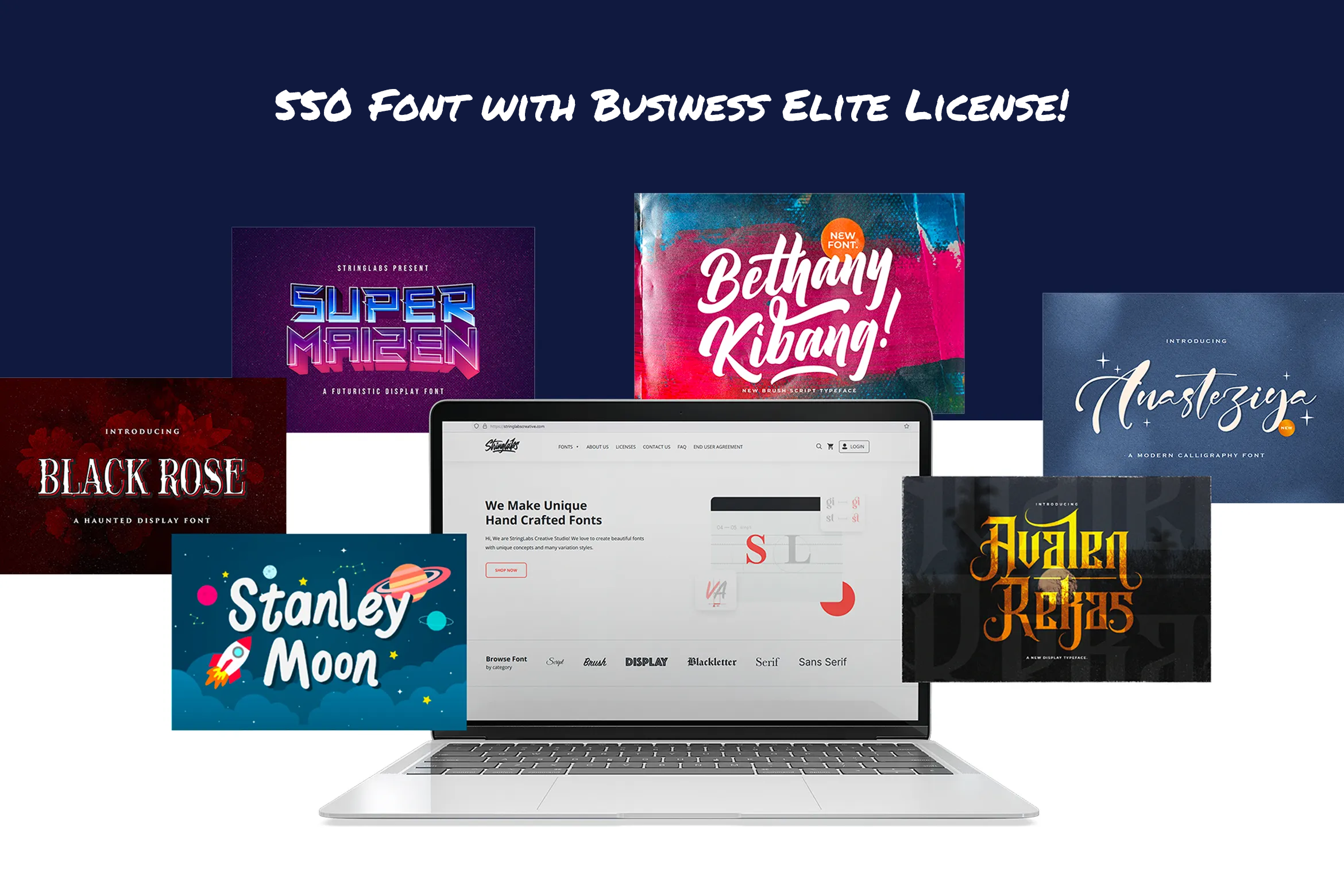
550 Font Bundle by StringLabs
Say hello to 550 Font Bundle with Corporate License from StringLabs! The Amazing font collection for your any design purpose. This font bundle contains 550 high quality fonts with has many variation styles, such as: Display Fonts, Blackletter Fonts, Victorian Fonts, Gothic Fonts, Horror Fonts, Thriller Fonts, Sans Serif Fonts, Decorative Serif Fonts, Playful Fonts, Textured HandBrush Fonts, and Handwritten Script Fonts.
36. Mystique – Luxury Signature Fonthttps://stringlabscreative.com/mystique
37. Ballerina – Signature Script Fonthttps://stringlabscreative.com/ballerina
38. Rachelyne – Modern Calligraphy Fonthttps://stringlabscreative.com/rachelyne
39. Beauty Heart – Lovely Calligraphy Fonthttps://stringlabscreative.com/beauty-heart
40. Dattge Hurty – Monoline Retro Fonthttps://stringlabscreative.com/dattge-hurty
41. Rindu Alam – Signature Script Fonthttps://stringlabscreative.com/rindu-alam
42. Stringlabs – Monoline Retro Fonthttps://stringlabscreative.com/stringlabs
43. Rayhue – Retro Bold Script Fonthttps://stringlabscreative.com/rayhue
44. The Anthelope – Retro Bold Script Fonthttps://stringlabscreative.com/the-anthelope
45. The Lastring – Tattoo Script Fonthttps://stringlabscreative.com/the-lastring
46. Anasite Malela – Bold Script Fonthttps://stringlabscreative.com/anasite-malela
47. Russel Dexter – Retro Vintage Fonthttps://stringlabscreative.com/russel-dexter
48. Calvin Fallen – Handwritten Signature Script Fonthttps://stringlabscreative.com/calvin-fallen
49. Montages – Retro Bold Script Fonthttps://stringlabscreative.com/montages
50. Brightly Crush – Playful Typefacehttps://stringlabscreative.com/brightly-crush
51. Dulan Anzelica – Signature Script Fonthttps://stringlabscreative.com/dulan-anzelica
52. Ingkar Janji – Stylish Script Fonthttps://stringlabscreative.com/ingkar-janji
53. Bethan White – Monoline Script Fonthttps://stringlabscreative.com/bethan-white
54. Miny Fellas – Modern Handwritten Fonthttps://stringlabscreative.com/miny-fellas
55. Virgiluna – Modern Calligraphy Fonthttps://stringlabscreative.com/virgiluna
56. Playkidos – Playful Fonthttps://stringlabscreative.com/playkidos
57. Melvina Wayne – Luxury Script Fonthttps://stringlabscreative.com/melvina-wayne
58. The Angellica – Modern Calligraphy Fonthttps://stringlabscreative.com/the-angellica
59. Miya Wayne – Modern Lovely Script Fonthttps://stringlabscreative.com/miya-wayne
60. Virgiano – Decorative Sporty Fonthttps://stringlabscreative.com/virgiano
61. Recollet – Retro Bold Script Fonthttps://stringlabscreative.com/recollet
62. Comic Boys – Kids Bubble Fonthttps://stringlabscreative.com/comic-boys
63. White Mellow – Handwritten Script Fonthttps://stringlabscreative.com/white-mellow
64. Stilda – Script Fonthttps://stringlabscreative.com/stilda
65. The Comic Struve – Playful Kids Fonthttps://stringlabscreative.com/the-comic-struve
66. Osake – Japanese Fonthttps://stringlabscreative.com/osake
67. Anttariksa – Brush Script Fonthttps://stringlabscreative.com/anttariksa
68. Holland Gateway – Handwritten Script Fonthttps://stringlabscreative.com/holland-gateway
69. Azingdar – Retro Bold Script Fonthttps://stringlabscreative.com/azingdar
70. Cyber Sport – Sporty Display Fonthttps://stringlabscreative.com/cyber-sport
71. Jacmax – Horror Fonthttps://stringlabscreative.com/jacmax
72. Fredam Theory – Retro Bold Script Fonthttps://stringlabscreative.com/fredam-theory
73. The Austin – Handwritten Fonthttps://stringlabscreative.com/the-austin
74. Taniya Relly – Luxury Signature Fonthttps://stringlabscreative.com/taniya-relly
75. Winsthen – Handwritten Fonthttps://stringlabscreative.com/winsthen
76. Jasmine Daily – Playful Display Fonthttps://stringlabscreative.com/jasmine-daily
77. Restu Bundah – Retro Bold Script Fonthttps://stringlabscreative.com/restu-bundah
78. Rantting Tjinta – Stylish Script Fonthttps://stringlabscreative.com/rantting-tjinta
79. Angelwine – Handwritten Fonthttps://stringlabscreative.com/angelwine
80. The Saily – Monoline Retro Fonthttps://stringlabscreative.com/the-saily
81. Mystic Darling – Handwritten Fonthttps://stringlabscreative.com/mystic-darling
82. Vivy Aquilla – Handwritten Fonthttps://stringlabscreative.com/vivy-aquilla
83. The Gallery – Monoline Script Fonthttps://stringlabscreative.com/the-gallery
84. Megahunt – Brush Script Fonthttps://stringlabscreative.com/megahunt
85. Hysteria – Stylish Script Fonthttps://stringlabscreative.com/hysteria
86. Kinder Boys – Playful Fonthttps://stringlabscreative.com/kinder-boys
87. Vagnotie – Modern Brush Fonthttps://stringlabscreative.com/vagnotie
88. Roguedash – Stylish Sans Font Familyhttps://stringlabscreative.com/roguedash
89. Ving Smith – Handwritten Fonthttps://stringlabscreative.com/ving-smith
90. Belinday – Monoline Script Fonthttps://stringlabscreative.com/belinday
91. Santy Ehisa – Stylish Script Fonthttps://stringlabscreative.com/santy-ehisa
92. Sellviny – Handwritten Fonthttps://stringlabscreative.com/sellviny
93. The Banten – Monoline Script Fonthttps://stringlabscreative.com/the-banten
94. Walentiny – Handwritten Fonthttps://stringlabscreative.com/walentiny
95. Mathulesy – Handwritten Fonthttps://stringlabscreative.com/mathulesy
96. Vuttaline – Handwritten Fonthttps://stringlabscreative.com/vuttaline
97. Pejuang Cinta – Handwritten Fonthttps://stringlabscreative.com/pejuang-cinta
98. Shiny Aisyah – Handwritten Fonthttps://stringlabscreative.com/shiny-aisyah
99. Austhind – Stylish Brush Fonthttps://stringlabscreative.com/austhind
100. Basuhed – Handwritten Fonthttps://stringlabscreative.com/basuhed
101. Baster Monky – Monoline Script Fonthttps://stringlabscreative.com/baster-monky
102. Mashiya – Monoline Script Fonthttps://stringlabscreative.com/mashiya
103. Chaybree – Handwritten Fonthttps://stringlabscreative.com/chaybree
104. Lovely Kids – Playful Fonthttps://stringlabscreative.com/lovely-kids
105. Vezthisory – Handwritten Fonthttps://stringlabscreative.com/vezthisory
106. Arionna – Modern Calligraphy Fonthttps://stringlabscreative.com/arionna
107. Baliung – Handwritten Fonthttps://stringlabscreative.com/bailung
108. Firsta – Handwritten Fonthttps://stringlabscreative.com/firsta
109. Bulgaria – Modern Calligraphy Fonthttps://stringlabscreative.com/bulgaria
110. Renitah – Lovely Script Fonthttps://stringlabscreative.com/renitah
111. Dianora – Handwritten Fonthttps://stringlabscreative.com/dianora
112. Twenty Senja – Playful Fonthttps://stringlabscreative.com/twenty-senja
113. Justhin – Monoline Script Fonthttps://stringlabscreative.com/justhin
114. I am Cool – Brush Script Fonthttps://stringlabscreative.com/i-am-cool
115. Reinstay – Brush Script Fonthttps://stringlabscreative.com/reinstay
116. Binttang Selfianto – Script Fonthttps://stringlabscreative.com/binttang-selfianto
117. Zenghief – Hand Brush Fonthttps://stringlabscreative.com/zenghief
118. Regalhisa – Calligraphy Fonthttps://stringlabscreative.com/regalhisa
119. Wilson Wells – Blackletter Fonthttps://stringlabscreative.com/wilson-wells
120. Stringlabs Creative – Bold Script Fonthttps://stringlabscreative.com/stringlabs-creative
121. Fendysa – Calligraphy Fonthttps://stringlabscreative.com/fendysa
122. Angelicy – Textured Brush Fonthttps://stringlabscreative.com/angelicy
123. Anjelica Script – Bold Script Fonthttps://stringlabscreative.com/anjelica-script
124. Aerillyo – Retro Bold Script Fonthttps://stringlabscreative.com/aerillyo
125. Carlitos – Decorative Sporty Fonthttps://stringlabscreative.com/carlitos
126. Avenus Type – Quirky Display Fonthttps://stringlabscreative.com/avenus-type
127. Blackink – Street Brush Display Fonthttps://stringlabscreative.com/blackink
128. Livingstone – Blackletter Fonthttps://stringlabscreative.com/livingstone
129. Lazyday – Bold Script Fonthttps://stringlabscreative.com/lazyday
130. Chalk Board – A Handmade Chalk Fonthttps://stringlabscreative.com/chalk-board
131. Awely Shiny – Handwritten Fonthttps://stringlabscreative.com/awely-shiny
132. Dark Phoenix – Playful Display Fonthttps://stringlabscreative.com/dark-phoenix
133. Super Kids – Playful Display Fonthttps://stringlabscreative.com/super-kids
134. Chivel Mind – Vintage Fonthttps://stringlabscreative.com/chivel-mind
135. Janji Cinta – Handwritten Fonthttps://stringlabscreative.com/janji-cinta
136. Betty Finty – Modern Script Fonthttps://stringlabscreative.com/betty-finty
137. Brittany Angella – Lovely Script Fonthttps://stringlabscreative.com/brittany-angella
138. Virgi Ella – Lovely Calligraphy Fonthttps://stringlabscreative.com/virgi-ella
139. Catthy Wellingten – Modern Script Fonthttps://stringlabscreative.com/catthy-wellingten
140. Cinthya Einzberg – Handwritten Fonthttps://stringlabscreative.com/cinthya-einzberg
141. Marvelous Photograph – Font Duohttps://stringlabscreative.com/marvelous-photograph
142. Mortal Wave – Dry Brush Fonthttps://stringlabscreative.com/mortal-wave
143. Haredang – Bold Script Fonthttps://stringlabscreative.com/haredang
144. Rattnugidari – Brush Script Fonthttps://stringlabscreative.com/rattnugidari
145. Butterfly – Lovely Calligraphy Fonthttps://stringlabscreative.com/butterfly
146. Magic Wand – Bold Script Fonthttps://stringlabscreative.com/magic-wand
147. Mentari – Bold Script Fonthttps://stringlabscreative.com/mentari
148. Sangkury – Haunted Display Fonthttps://stringlabscreative.com/sangkury
149. Brightside – Modern Calligraphy Fonthttps://stringlabscreative.com/brightside
150. Dilan Whemsy – Modern Script Fonthttps://stringlabscreative.com/dilan-whemsy
151. Kenarose – Playful Display Fonthttps://stringlabscreative.com/kenarose
152. Welingtom – Futuristic Display Fonthttps://stringlabscreative.com/welingtom
153. Rhieknuza – Graffiti Fonthttps://stringlabscreative.com/rhieknuza
154. Hey Sweety – Modern Script Fonthttps://stringlabscreative.com/hey-sweety
155. Amelliz – Calligraphy Brush Fonthttps://stringlabscreative.com/amelliz
156. Walytime – Handwritten Fonthttps://stringlabscreative.com/walytime
157. Fatin Gengky – Casual Serif Fonthttps://stringlabscreative.com/fatin-gengky
158. Wenykidos – Playful Display Fonthttps://stringlabscreative.com/wenykidos
159. Funcy Kids! – Playful Display Fonthttps://stringlabscreative.com/funcy-kids
160. Angel Rhapsody – Blackletter Fonthttps://stringlabscreative.com/angel-rhapsody
161. Agise Rujdi – Blackletter Fonthttps://stringlabscreative.com/agise-rujdi
162. Ajuslly – Modern Calligraphy Fonthttps://stringlabscreative.com/ajuslly
163. Bellamy Signature – Handwritten Fonthttps://stringlabscreative.com/bellamy-signature
164. Dirly Belly – Lovely Calligraphy Fonthttps://stringlabscreative.com/dirly-belly
165. Romantika Hidup – Dry Brush Script Fonthttps://stringlabscreative.com/romantika-hidup
166. Banyu Langits – Quirky Display Fonthttps://stringlabscreative.com/banyu-langits
167. Sellviny Queen – Handwritten Fonthttps://stringlabscreative.com/sellviny-queen
168. Jelly Belty! – Handwritten Fonthttps://stringlabscreative.com/jelly-belty
169. Rantliyer – Calligraphy Fonthttps://stringlabscreative.com/rantliyer
170. Manthesy – Brush Script Fonthttps://stringlabscreative.com/manthesy
171. Jarida – Bold Script Fonthttps://stringlabscreative.com/jarida
172. Agenda King – Vintage Script Fonthttps://stringlabscreative.com/agenda-king
173. Mady Risaw – Modern Script Fonthttps://stringlabscreative.com/mady-risaw
174. Pagi Senja – Calligraphy Fonthttps://stringlabscreative.com/pagi-senja
175. Amellis Path – Brush Script Fonthttps://stringlabscreative.com/amellis-path
176. Pomthinq – Brush Script Fonthttps://stringlabscreative.com/pomthinq
177. Angika Jaya – Handwritten Fonthttps://stringlabscreative.com/angika-jaya
178. Andy Tusvah – Bold Script Fonthttps://stringlabscreative.com/andy-tusvah
179. Jerhiyof – Lovely Script Fonthttps://stringlabscreative.com/jerhiyof
180. Seindah Cinttya – Casual Script Fonthttps://stringlabscreative.com/seindah-cinttya
181. Oyange – Brush Calligraphy Fonthttps://stringlabscreative.com/oyange
182. Sportive – Modern Display Fonthttps://stringlabscreative.com/sportive
183. Revij Anovik – Decorative Serif Fonthttps://stringlabscreative.com/revij-anovik
184. Lazy Monday – Bold Script Fonthttps://stringlabscreative.com/lazy-monday
185. Phoenix Squad – Modern Display Fonthttps://stringlabscreative.com/phoenix-squad
186. Super Maizen – Futuristic Display Fonthttps://stringlabscreative.com/super-maizen
187. The Bugatten – Bold Script Fonthttps://stringlabscreative.com/the-bugatten
188. Geng Rimba – Modern Script Fonthttps://stringlabscreative.com/geng-rimba
189. Bahisey – Modern Script Fonthttps://stringlabscreative.com/bahisey
190. Anythings – Calligraphy Fonthttps://stringlabscreative.com/anythings
191. Antique – Bold Script Fonthttps://stringlabscreative.com/antique
192. Jacyking – Lovely Script Fonthttps://stringlabscreative.com/jacyking
193. Hunthers Dwayne – Handwritten Fonthttps://stringlabscreative.com/hunthers-dwayne
194. Sany Cimahen – Handwritten Fonthttps://stringlabscreative.com/sany-cimahen
195. Janyss Brush – Natural Brush Fonthttps://stringlabscreative.com/janyss-brush
196. Cameliya – Bold Script Fonthttps://stringlabscreative.com/cameliya
197. Honuzima – Handbrush Script Fonthttps://stringlabscreative.com/honuzima
198. Daisuky Fancy – Tatto Script Fonthttps://stringlabscreative.com/daisuky-fancy
199. Amazing Kids – Playful Display Fonthttps://stringlabscreative.com/amazing-kids
200. Vires Gollem – Display Fonthttps://stringlabscreative.com/vires-gollem
201. Wynter Sandy – Bold Script Fonthttps://stringlabscreative.com/wynter-sandy
202. Angeliny – Calligraphy Fonthttps://stringlabscreative.com/angeliny
203. Comic Dylans – Playful Display Fonthttps://stringlabscreative.com/comic-dylans
204. Baby World – Playful Display Fonthttps://stringlabscreative.com/baby-world
205. Aginoe – Modern Sans Serif Fonthttps://stringlabscreative.com/aginoe
206. Aisbum Slashey – Modern Script Fonthttps://stringlabscreative.com/aisbum-slashey
207. Aquilla – Brush Script Fonthttps://stringlabscreative.com/aquilla
208. Candy Yefumy – Playful Display Fonthttps://stringlabscreative.com/candy-yefumy
209. Jangkids – Playful Display Fonthttps://stringlabscreative.com/jangkids
210. Fun Games – Futuristic Display Fonthttps://stringlabscreative.com/fun-games
211. Angel Wish – Blackletter Fonthttps://stringlabscreative.com/angel-wish
212. Balhgi Rizetons – Bold Script Fonthttps://stringlabscreative.com/balhgi-rizetons
213. Sabina Angellica – Modern Script Fonthttps://stringlabscreative.com/sabina-angellica
214. Rattu Aqilla – Textured Brush Fonthttps://stringlabscreative.com/rattu-aqilla
215. Candy Qelling – Brush Script Fonthttps://stringlabscreative.com/candy-qelling
216. Tukiyem – Handwritten Fonthttps://stringlabscreative.com/tukiyem
217. Sugih Janji – Handbrush Script Fonthttps://stringlabscreative.com/sugih-janji
218. Rathury – Modern Decorative Script Fonthttps://stringlabscreative.com/rathury
219. Kangtoni – Monoline Script Fonthttps://stringlabscreative.com/kangtoni
220. Feri Candi – Monoline Script Fonthttps://stringlabscreative.com/feri-candi
221. Rademos – Blackletter Fonthttps://stringlabscreative.com/rademos
222. Ratih Hyun – Lovely Calligraphy Fonthttps://stringlabscreative.com/ratih-hyun
223. Sang Dewi – Handbrush Script Fonthttps://stringlabscreative.com/sang-dewi
224. Allise – Signature Script Fonthttps://stringlabscreative.com/allise
225. Agies Fresh – Retro Bold Script Fonthttps://stringlabscreative.com/agies-fresh
226. Black Rose – Haunted Display Fonthttps://stringlabscreative.com/black-rose
227. Jodaguz – Display Sans Fonthttps://stringlabscreative.com/jodaguz
228. Helloo Kidos – Playful Display Fonthttps://stringlabscreative.com/helloo-kidos
229. Girdens – Decorative Serif Fonthttps://stringlabscreative.com/girdens
230. Hey Kidos! – Playful Display Fonthttps://stringlabscreative.com/hey-kidos
231. Bagus Stanlley – Stylish Script Fonthttps://stringlabscreative.com/bagus-stanlley
232. Shanti Creny – Modern Script Fonthttps://stringlabscreative.com/shanti-creny
233. Ansagia Metta – Bold Script Fonthttps://stringlabscreative.com/ansagia-metta
234. Agia Valley – Handwritten Fonthttps://stringlabscreative.com/agia-valley
235. Arthur Taniya – Lovely Calligraphy Fonthttps://stringlabscreative.com/arthur-taniya
236. Anjany Sallentiny – Handwritten Fonthttps://stringlabscreative.com/anjany-sallentiny
237. The Migare – Handwritten Fonthttps://stringlabscreative.com/the-migare
238. Jathselim – Handwritten Fonthttps://stringlabscreative.com/jathselim
239. Martina – Handwritten Fonthttps://stringlabscreative.com/martina
240. Fariste Qlark – Handwritten Fonthttps://stringlabscreative.com/fariste-qlark
241. Baweni – Handwritten Script Fonthttps://stringlabscreative.com/baweni
242. Dilan Script – Modern Script Fonthttps://stringlabscreative.com/dilan-script
243. Butterfly Winter – Handwritten Fonthttps://stringlabscreative.com/butterfly-winter
244. Betharia Classy – Modern Script Fonthttps://stringlabscreative.com/betharia-classy
245. Anzim – Signature Script Fonthttps://stringlabscreative.com/anzim
246. Banten Lama – Signature Script Fonthttps://stringlabscreative.com/banten-lama
247. Rindu Ghisel – Quirky Script Fonthttps://stringlabscreative.com/rindu-ghisel
248. Dayden Batemisy – Brush Script Fonthttps://stringlabscreative.com/dayden-batemisy
249. Sayodies – Handbrush Script Fonthttps://stringlabscreative.com/sayodies
250. Biyonella – Retro Bold Script Fonthttps://stringlabscreative.com/biyonella
251. Patric Zihva – Retro Bold Script Fonthttps://stringlabscreative.com/patric-zihva
252. Rizta Hafiq – Retro Bold Script Fonthttps://stringlabscreative.com/rizta-hafiq
253. Bila Seyka – Lovely Script Fonthttps://stringlabscreative.com/bila-seyka
254. Fenthy Wahuky – Lovely Script Fonthttps://stringlabscreative.com/fenthy-wahuky
255. Hanyka Rathery – Lovely Script Fonthttps://stringlabscreative.com/hanyka-rathery
256. Sailyme – Lovely Script Fonthttps://stringlabscreative.com/sailyme
257. Fancy Quisley – Blackletter Fonthttps://stringlabscreative.com/fancy-quisley
258. Dark Angels – Haunted Display Fonthttps://stringlabscreative.com/dark-angels
259. Kosan Murah – Horror Fonthttps://stringlabscreative.com/kosan-murah
260. Belfina Husairy – Classic Serif Fonthttps://stringlabscreative.com/belfina-husairy
261. Angler – Roman Serif Fonthttps://stringlabscreative.com/angler
262. Serizawa – Classic Serif Fonthttps://stringlabscreative.com/serizawa
263. Phantom Shrine – Beautiful Serif Fonthttps://stringlabscreative.com/phantom-shrine
264. Shine Kejora – Playful Display Fonthttps://stringlabscreative.com/shine-kejora
265. Playful World – Playful Display Fonthttps://stringlabscreative.com/playful-world
266. Baby Angel – Playful Display Fonthttps://stringlabscreative.com/baby-angel
267. Sandy Kids – Playful Display Fonthttps://stringlabscreative.com/sandy-kids
268. Piemonte – Casual Sans Serif Fonthttps://stringlabscreative.com/piemonte
269. Vintage Style – Bold Script Fonthttps://stringlabscreative.com/vintage-style
270. Whetiya – Love Script Fonthttps://stringlabscreative.com/whetiya
271. Rusthina – Love Script Fonthttps://stringlabscreative.com/rusthina
272. Bitley Anthem – Handwritten Fonthttps://stringlabscreative.com/bitley-anthem
273. Audrey Kids – Playful Display Fonthttps://stringlabscreative.com/audrey-kids
274. Geky Xin – Playful Display Fonthttps://stringlabscreative.com/geky-xin
275. Nightmare – Horror Fonthttps://stringlabscreative.com/nightmare
276. Senoya Bright – Display Fonthttps://stringlabscreative.com/senoya-bright
277. Spider King – Bouncy Serif Fonthttps://stringlabscreative.com/spider-king
278. Travis Zone – Playful Display Fonthttps://stringlabscreative.com/travis-zone
279. Avins Bake – Decorative Serif Fonthttps://stringlabscreative.com/avins-bake
280. Bristol Maver – Decorative Fonthttps://stringlabscreative.com/bristol-maver
281. Super Byzantine – Decorative Fonthttps://stringlabscreative.com/super-byzantine
282. Denibas Sunset – Blackletter Fonthttps://stringlabscreative.com/denibas-sunset
283. Aurel Shine – Blackletter Fonthttps://stringlabscreative.com/aurel-shine
284. Avalen Rekas – Blackletter Fonthttps://stringlabscreative.com/avalen-rekas
285. Steffany Wolfeng – Blackletter Fonthttps://stringlabscreative.com/steffany-wolfeng
286. Angkise – Playful Display Fonthttps://stringlabscreative.com/angkise
287. Bubble Shine – Playful Display Fonthttps://stringlabscreative.com/bubble-shine
288. Sri Candy – Playful Display Fonthttps://stringlabscreative.com/sri-candy
289. Ronttsein – Brush Script Fonthttps://stringlabscreative.com/ronttsein
290. Anyer Beach – Handwritten Fonthttps://stringlabscreative.com/anyer-beach
291. Antemy – Modern Script Fonthttps://stringlabscreative.com/antemy
292. Sally Tazem – Handwritten Fonthttps://stringlabscreative.com/sally-tazem
293. Agus Hasny – Love Script Fonthttps://stringlabscreative.com/agus-hasny
294. Angelina Rahmy – Modern Script Fonthttps://stringlabscreative.com/angelina-rahmy
295. Anghine Darma – Modern Script Fonthttps://stringlabscreative.com/anghine-darma
296. Angilla Denis – Brush Script Fonthttps://stringlabscreative.com/angilla-denis
297. Anthony Louis – Modern Script Fonthttps://stringlabscreative.com/anthony-louis
298. Artemay Bright – Signature Script Fonthttps://stringlabscreative.com/artemay-bright
299. Britany Queens – Handwritten Fonthttps://stringlabscreative.com/britany-queens
300. Farisky Marlline – Lovely Calligraphy Fonthttps://stringlabscreative.com/farisky-marlline
301. Rosalinda – Bold Script Fonthttps://stringlabscreative.com/rosalinda
302. Roulette – Bold Script Fonthttps://stringlabscreative.com/roulette
303. Madena Parlling – Bold Script Fonthttps://stringlabscreative.com/madena-parlling
304. Silafejira – Blackletter Fonthttps://stringlabscreative.com/silafejira
305. Bahisy – Blackletter Fonthttps://stringlabscreative.com/bahisy
306. Rogfus Sejatty – Blackletter Fonthttps://stringlabscreative.com/rogfus-sejatty
307. Shiny Kage – Blackletter Fonthttps://stringlabscreative.com/shiny-kage
308. Aerilay – Handwritten Fonthttps://stringlabscreative.com/aerilay
309. Anelka Fambuya – Monoline Retro Fonthttps://stringlabscreative.com/anelka-fambuya
310. Allezia Sttacy – Handwritten Fonthttps://stringlabscreative.com/allezia-sttacy
311. Attagiel – Handwritten Fonthttps://stringlabscreative.com/attagiel
312. Barista Heraly – Handwritten Fonthttps://stringlabscreative.com/barista-heraly
313. Feny Anjany – Handwritten Fonthttps://stringlabscreative.com/feny-anjany
314. Honilley – Handwritten Fonthttps://stringlabscreative.com/honilley
315. Matequn Historiya – Handwritten Fonthttps://stringlabscreative.com/matequn-historiya
316. Nathallis – Handwritten Fonthttps://stringlabscreative.com/nathallis
317. Sabeny Betranss – Handwritten Fonthttps://stringlabscreative.com/sabeny-betranss
318. Astayfattony – Handwritten Fonthttps://stringlabscreative.com/astayfattony
319. Hontizema – Handwritten Fonthttps://stringlabscreative.com/hontizema
320. Arttemay – Handwritten Fonthttps://stringlabscreative.com/arttemay
321. Aquero – Victorian Style Fonthttps://stringlabscreative.com/aquero
322. Nicolas – Victorian Style Fonthttps://stringlabscreative.com/nicolas
323. Rose Knight – Victorian Style Fonthttps://stringlabscreative.com/rose-knight
324. Rafiquell – Victorian Style Fonthttps://stringlabscreative.com/rafiquell
325. Settary Tenjutsu – Handwritten Fonthttps://stringlabscreative.com/settary-tenjutsu
326. Barnie Kids – Playful Display Fonthttps://stringlabscreative.com/barnie-kids
327. Cinta Suci – Fancy Display Fonthttps://stringlabscreative.com/cinta-suci
328. Agathiqy – Blackletter Fonthttps://stringlabscreative.com/agathiqy
329. Shiny Kids – Playful Display Fonthttps://stringlabscreative.com/shiny-kids
330. Prastico – Blackletter Fonthttps://stringlabscreative.com/prastico
331. Rineghan – Bold Script Fonthttps://stringlabscreative.com/rineghan
332. Aliya Ramsey – Handwritten Fonthttps://stringlabscreative.com/aliya-ramsey
333. Stringlabs Script – Handwritten Fonthttps://stringlabscreative.com/stringlabs-script
334. Amigos Script – Retro Bold Script Fonthttps://stringlabscreative.com/amigos-script
335. Ardilah Kafi – Victorian Style Fonthttps://stringlabscreative.com/ardilah-kafi
336. Bethany Kibang – Bold Script Fonthttps://stringlabscreative.com/bethany-kibang
337. The Qlickers – Casual Sans Serif Fonthttps://stringlabscreative.com/the-qlickers
338. Lintang Kangen – Handwritten Fonthttps://stringlabscreative.com/lintang-kangen
339. Bagator – Classic Serif Fonthttps://stringlabscreative.com/bagator
340. Miztar – Victorian Style Fonthttps://stringlabscreative.com/miztar
341. The Swarm – Playful Display Fonthttps://stringlabscreative.com/the-swarm
342. Hadfim – Blackletter Fonthttps://stringlabscreative.com/hadfim
343. Yugitoy – Blackletter Fonthttps://stringlabscreative.com/yugitoy
344. Awaken – Casual Serif Fonthttps://stringlabscreative.com/awaken
345. Riley Frost – Casual Serif Fonthttps://stringlabscreative.com/riley-frost
346. Afronghey – Handwritten Fonthttps://stringlabscreative.com/afronghey
347. Agatony – Handwritten Fonthttps://stringlabscreative.com/agatony
348. Aguset – Handwritten Fonthttps://stringlabscreative.com/aguset
349. Awejatty – Handwritten Fonthttps://stringlabscreative.com/awejatty
350. Ayus – Handbrush Script Fonthttps://stringlabscreative.com/ayus
351. Akidan Hatory – Bold Script Fonthttps://stringlabscreative.com/akidan-hatory
352. Aylafs – Bold Script Fonthttps://stringlabscreative.com/aylafs
353. Vaizonlly – Bold Script Fonthttps://stringlabscreative.com/vaizonlly
354. Gisselle – Bold Script Fonthttps://stringlabscreative.com/gisselle
355. Dutalisa Joily – Handwritten Fonthttps://stringlabscreative.com/dutalisa-joily
356. Cinthya Amy – Handwritten Fonthttps://stringlabscreative.com/cinthya-amy
357. Fathony Script – Handwritten Fonthttps://stringlabscreative.com/fathony-script
358. Hay Catty – Handwritten Fonthttps://stringlabscreative.com/hay-catty
359. Partiny Agathi – Handwritten Fonthttps://stringlabscreative.com/partiny-agathi
360. Rattih Putri – Handwritten Fonthttps://stringlabscreative.com/rattih-putri
361. Saling Cinta – Handwritten Fonthttps://stringlabscreative.com/saling-cinta
362. Sandy Lailyatir – Handwritten Fonthttps://stringlabscreative.com/sandy-lailyatir
363. Adibafih – Casual Serif Fonthttps://stringlabscreative.com/adibafih
364. Barney Pop – Playful Display Fonthttps://stringlabscreative.com/barney-pop
365. Rattoney – Bold Script Fonthttps://stringlabscreative.com/rattoney
366. Super Wadon – Haunted Display Fonthttps://stringlabscreative.com/super-wadon
367. Time Mover – Playful Display Fonthttps://stringlabscreative.com/time-mover
368. Anya Tamy – Classic Serif Fonthttps://stringlabscreative.com/anya-tamy
369. Aston Sofianty – Handwritten Fonthttps://stringlabscreative.com/aston-sofianty
370. Hesty Aqaky – Modern Script Fonthttps://stringlabscreative.com/hesty-aqaky
371. Dragon Kids – Playful Display Fonthttps://stringlabscreative.com/dragon-kids
372. Phoenix Ayash – Bold Serif Fonthttps://stringlabscreative.com/phoenix-ayash
373. Raffles Bryant – Textured Brush Fonthttps://stringlabscreative.com/raffles-bryant
374. Biqaby Goku – Blackletter Fonthttps://stringlabscreative.com/biqaby-goku
375. Listan Type – Playful Display Fonthttps://stringlabscreative.com/listan-type
376. Raizen – Victorian Style Fonthttps://stringlabscreative.com/raizen
377. Fany Harlley – Handwritten Fonthttps://stringlabscreative.com/fany-harlley
378. Kevin Ghal – Victorian Style Fonthttps://stringlabscreative.com/kevin-ghal
379. Gareth Bayu – Handwritten Fonthttps://stringlabscreative.com/gareth-bayu
380. Fany Smash – Handwritten Fonthttps://stringlabscreative.com/fany-smash
381. Quiglary – Handwritten Fonthttps://stringlabscreative.com/quiglary
382. Origa Script – Handwritten Fonthttps://stringlabscreative.com/origa-script
383. Rubeyma – Bold Script Fonthttps://stringlabscreative.com/rubeyma
384. Parakan Brush – Brush Display Fonthttps://stringlabscreative.com/parakan-brush
385. Orang Indonesia – Handwritten Fonthttps://stringlabscreative.com/orang-indonesia
386. Sarkowik – Victorian Style Fonthttps://stringlabscreative.com/sarkowik
387. Bestallie – Bold Script Fonthttps://stringlabscreative.com/bestallie
388. Falcon Harfing – Bold Script Fonthttps://stringlabscreative.com/falcon-harfing
389. Cindyrella – Playful Display Fonthttps://stringlabscreative.com/cindyrella
390. Faloney Script – Handwritten Fonthttps://stringlabscreative.com/faloney-script
391. Hiruzen Exists – Textured Brush Fonthttps://stringlabscreative.com/hiruzen-exists
392. Bella Pilatry – Handwritten Fonthttps://stringlabscreative.com/bella-pilatry
393. Asthacy Reny – Handwritten Fonthttps://stringlabscreative.com/asthacy-reny
394. Wazintte – Victorian Style Fonthttps://stringlabscreative.com/wazintte
395. Playworld – Playful Display Fonthttps://stringlabscreative.com/playworld
396. Sankutters – Playful Display Fonthttps://stringlabscreative.com/sankutters
397. Sonya Cute – Playful Display Fonthttps://stringlabscreative.com/sonya-cute
398. Sungai Musi – Playful Display Fonthttps://stringlabscreative.com/sungai-musi
399. Zamoretta – Playful Display Fonthttps://stringlabscreative.com/zamoretta
400. Virgo Display – Haunted Display Fonthttps://stringlabscreative.com/virgo-display
401. Sung Abed – Decorative Display Fonthttps://stringlabscreative.com/sung-abed
402. Rezojas – Bold Script Fonthttps://stringlabscreative.com/rezojas
403. Antapin – Bold Script Fonthttps://stringlabscreative.com/antapin
404. Maksum – Handwritten Fonthttps://stringlabscreative.com/maksum
405. The Anttair – Handwritten Fonthttps://stringlabscreative.com/the-anttair
406. Vatteny Rose – Signature Script Fonthttps://stringlabscreative.com/vatteny-rose
407. Miyabon – Textured Brush Fonthttps://stringlabscreative.com/miyabon
408. Rox Display – Playful Display Fonthttps://stringlabscreative.com/rox-display
409. Angin Senja – Handwritten Fonthttps://stringlabscreative.com/angin-senja
410. Attang Script – Handwritten Fonthttps://stringlabscreative.com/attang-script
411. Ronald Charis – Textured Brush Fonthttps://stringlabscreative.com/ronald-charis
412. Stanley Moon – Playful Display Fonthttps://stringlabscreative.com/stanley-moon
413. Schoolkid – Playful Display Fonthttps://stringlabscreative.com/schoolkid
414. Aline – Handwritten Fonthttps://stringlabscreative.com/aline
415. Bingo Reky – Textured Brush Fonthttps://stringlabscreative.com/bingo-reky
416. Janji Dilan – Textured Brush Fonthttps://stringlabscreative.com/janji-dilan
417. Sang Ratu – Vintage Script Fonthttps://stringlabscreative.com/sang-ratu
418. Rategin – Vintage Script Fonthttps://stringlabscreative.com/rategin
419. Ambrosia – Blackletter Fonthttps://stringlabscreative.com/ambrosia
420. Rutmag Sugan – Decorative Display Fonthttps://stringlabscreative.com/rutmag-sugan
421. FLORETTA – Playful Display Fonthttps://stringlabscreative.com/floretta
422. Boyna – Bold Script Fonthttps://stringlabscreative.com/boyna
423. Agethsa – Textured Brush Fonthttps://stringlabscreative.com/agethsa
424. Celline Fram – Textured Brush Fonthttps://stringlabscreative.com/celline-fram
425. Fentry – Textured Brush Fonthttps://stringlabscreative.com/fentry
426. Ramez – Textured Brush Fonthttps://stringlabscreative.com/ramez
427. Riqage – Textured Brush Fonthttps://stringlabscreative.com/riqage
428. Rugani Payne – Textured Brush Fonthttps://stringlabscreative.com/rugani-payne
429. Ahmad Sutomi – Handwritten Fonthttps://stringlabscreative.com/ahmad-sutomi
430. Allison Franco – Handwritten Fonthttps://stringlabscreative.com/allison-franco
431. Ameliya – Handwritten Fonthttps://stringlabscreative.com/ameliya
432. Astria – Handwritten Fonthttps://stringlabscreative.com/astria
433. Bintang Kejora – Handwritten Fonthttps://stringlabscreative.com/bintang-kejora
434. Dilaney – Handwritten Fonthttps://stringlabscreative.com/dilaney
435. Ratri Volutten – Handwritten Fonthttps://stringlabscreative.com/ratri-volutten
436. Saturday Crush – Handwritten Fonthttps://stringlabscreative.com/saturday-crush
437. Stranger – Handwritten Fonthttps://stringlabscreative.com/stranger
438. Cinta Monyett – Handwritten Fonthttps://stringlabscreative.com/cinta-monyett
439. Lentera Hati – Handwritten Fonthttps://stringlabscreative.com/lentera-hati
440. Virgi Theory – Handwritten Fonthttps://stringlabscreative.com/virgi-theory
441. James Ariyale – Handwritten Fonthttps://stringlabscreative.com/james-ariyale
442. Hellios Gothic – Blackletter Fonthttps://stringlabscreative.com/hellios-gothic
443. Higuey Matteo – Textured Brush Fonthttps://stringlabscreative.com/higuey-matteo
444. Resttu Pagi – Handwritten Fonthttps://stringlabscreative.com/resttu-pagi
445. Rinjany – Textured Brush Fonthttps://stringlabscreative.com/rinjany
446. Agil Script – Handwritten Fonthttps://stringlabscreative.com/agil-script
447. Edgar Wesley – Playful Display Fonthttps://stringlabscreative.com/edgar-wesley
448. Bezitta – Handwritten Fonthttps://stringlabscreative.com/bezitta
449. Fany Brush – Textured Brush Fonthttps://stringlabscreative.com/fany-brush
450. Hany Petter – Handwritten Fonthttps://stringlabscreative.com/hany-petter
451. The Junipes – Textured Brush Fonthttps://stringlabscreative.com/the-junipes
452. Blackwell – Textured Brush Fonthttps://stringlabscreative.com/blackwell
453. Amy Riyas – Textured Brush Fonthttps://stringlabscreative.com/amy-riyas
454. Famous Brush – Textured Brush Fonthttps://stringlabscreative.com/famous-brush
455. Elegante – Decorative Serif Fonthttps://stringlabscreative.com/elegante
456. Vintage King – Decorative Serif Fonthttps://stringlabscreative.com/vintage-king
457. Amelia Sani – Handwritten Fonthttps://stringlabscreative.com/amelia-sani
458. Amelya – Handwritten Fonthttps://stringlabscreative.com/amelya
459. Andhika Finta – Handwritten Fonthttps://stringlabscreative.com/andhika-finta
460. Angela Hasuky – Handwritten Fonthttps://stringlabscreative.com/angela-hasuky
461. Azteciya – Handwritten Fonthttps://stringlabscreative.com/azteciya
462. Fany Alleya – Handwritten Fonthttps://stringlabscreative.com/fany-alleya
463. Fattemah – Handwritten Fonthttps://stringlabscreative.com/fattemah
464. Honeymoon – Handwritten Fonthttps://stringlabscreative.com/honeymoon
465. Maguire – Handwritten Fonthttps://stringlabscreative.com/maguire
466. MEIZURY – Handwritten Fonthttps://stringlabscreative.com/meizury
467. Ronald Flick – Handwritten Fonthttps://stringlabscreative.com/ronald-flick
468. Sabtu Minggu – Handwritten Fonthttps://stringlabscreative.com/sabtu-minggu
469. Sang Bintang – Handwritten Fonthttps://stringlabscreative.com/sang-bintang
470. Sanju Vony – Handwritten Fonthttps://stringlabscreative.com/sanju-vony
471. Sattomy – Handwritten Fonthttps://stringlabscreative.com/sattomy
472. Sugano – Handwritten Fonthttps://stringlabscreative.com/sugano
473. Susanow – Handwritten Fonthttps://stringlabscreative.com/susanow
474. Toniya Smith – Handwritten Fonthttps://stringlabscreative.com/toniya-smith
475. CANDY PUTRI – Playful Display Fonthttps://stringlabscreative.com/candy-putri
476. Heinzo – Playful Display Fonthttps://stringlabscreative.com/heinzo
477. Pisang Keju – Playful Display Fonthttps://stringlabscreative.com/pisang-keju
478. Sunday Display – Playful Fonthttps://stringlabscreative.com/sunday-display
479. Tulis Yuk – Playful Display Fonthttps://stringlabscreative.com/tulis-yuk
480. Rattfiny Script – Signature Script Fonthttps://stringlabscreative.com/rattfiny-script
481. Tanya Hati – Signature Script Fonthttps://stringlabscreative.com/tanya-hati
482. BHINEKA – Elegant Serif Fonthttps://stringlabscreative.com/bhineka
483. JHINBEY – Elegant Serif Fonthttps://stringlabscreative.com/jhinbey
484. Mister Saefudin – Elegant Serif Fonthttps://stringlabscreative.com/mister-saefudin
485. Renjany – Elegant Serif Fonthttps://stringlabscreative.com/renjany
486. Rose Quay – Elegant Serif Fonthttps://stringlabscreative.com/rose-quay
487. Gokil Nova – Victorian Style Fonthttps://stringlabscreative.com/gokil-nova
488. Rowney Kahfi – Victorian Style Fonthttps://stringlabscreative.com/rowney-kahfi
489. Technocra – Futuristic Sans Fonthttps://stringlabscreative.com/technocra
490. Phoenix Gaming – Futuristic Sans Fonthttps://stringlabscreative.com/phoenix-gaming
491. HIROSHIMA – Playful Display Fonthttps://stringlabscreative.com/hiroshima
492. Amy Sauly – Handwritten Fonthttps://stringlabscreative.com/amy-sauly
493. Santtuy – Handwritten Fonthttps://stringlabscreative.com/santtuy
494. Hungry Beast – Playful Display Fonthttps://stringlabscreative.com/hungry-beast
495. Reginy – Textured Brush Fonthttps://stringlabscreative.com/reginy
496. SUPERBOLT – Futuristic Sans Fonthttps://stringlabscreative.com/superbolt
497. Sandy King – Casual Serif Fonthttps://stringlabscreative.com/sandy-king
498. Rosemary – Elegant Serif Fonthttps://stringlabscreative.com/rosemary
499. Dragon Knight – Textured Brush Fonthttps://stringlabscreative.com/dragon-knight
500. Jeany Gifary – Textured Brush Fonthttps://stringlabscreative.com/jeany-gifary
501. Cinta Sehatti – Calligraphy Fonthttps://stringlabscreative.com/cinta-sehatti
502. SUPER PUNCH – Futuristic Sans Fonthttps://stringlabscreative.com/super-punch
503. ROMAN SHINE – Display Sans Fonthttps://stringlabscreative.com/roman-shine
504. RONALDI GUJE – Display Sans Fonthttps://stringlabscreative.com/ronaldi-guje
505. Laneky Haizen – Signature Script Fonthttps://stringlabscreative.com/laneky-haizen
506. Angelina Rachmi – Calligraphy Fonthttps://stringlabscreative.com/angelina-rachmi
507. Alexander Display – Playful Display Fonthttps://stringlabscreative.com/alexander-display
508. DEMOKRASI – Decorative Display Fonthttps://stringlabscreative.com/demokrasi
509. LIONEL VIRGI – Playful Display Fonthttps://stringlabscreative.com/lionel-virgi
510. Risatry – Calligraphy Fonthttps://stringlabscreative.com/risatry
511. BUSTERY – Haunted Display Fonthttps://stringlabscreative.com/bustery
512. Pangestu – Calligraphy Fonthttps://stringlabscreative.com/pangestu
513. Anasteziya – Calligraphy Fonthttps://stringlabscreative.com/anasteziya
514. Sembilu Script – Handwritten Fonthttps://stringlabscreative.com/sembilu-script
515. Martin Zidan – Signature Script Fonthttps://stringlabscreative.com/martin-zidan
516. Franky Rain – Signature Script Fonthttps://stringlabscreative.com/franky-rain
517. Ramly Zatins – Signature Script Fonthttps://stringlabscreative.com/ramly-zatins
518. Black Ming – Calligraphy Fonthttps://stringlabscreative.com/black-ming
519. Tajur Puncak – Handwritten Fonthttps://stringlabscreative.com/tajur-puncak
520. Tindak Pundi – Signature Script Fonthttps://stringlabscreative.com/tindak-pundi
521. Bung Virgi – Signature Script Fonthttps://stringlabscreative.com/bung-virgi
522. Alatas Script – Signature Script Fonthttps://stringlabscreative.com/alatas-script
523. Mugen Ragi – Modern Script Fonthttps://stringlabscreative.com/mugen-ragi
524. Nomer Samvilan – Victorian Display Fonthttps://stringlabscreative.com/nomer-samvilan
525. Hewina – Victorian Display Fonthttps://stringlabscreative.com/hewina
526. Bonwick Weaver – Victorian Display Fonthttps://stringlabscreative.com/bonwick-weaver
527. Hanzow Sewick – Victorian Display Fonthttps://stringlabscreative.com/hanzow-sewick
528. BAGREK DISPLAY – Sans Serif Fonthttps://stringlabscreative.com/bagrek-display
529. Mibaguy – Decorative Display Fonthttps://stringlabscreative.com/mibaguy
530. Minguwest – Decorative Serif Fonthttps://stringlabscreative.com/minguwest
531. PURWATYPE – Roman Serif Fonthttps://stringlabscreative.com/purwatype
532. Roshinta – Decorative Display Fonthttps://stringlabscreative.com/roshinta
533. The White Knight – Blackletter Fonthttps://stringlabscreative.com/the-white-knight
534. Winter Raya – Signature Fonthttps://stringlabscreative.com/winter-raya
535. Thinker Script – Signature Fonthttps://stringlabscreative.com/thinker-script
536. Suliway – Display Serif Fonthttps://stringlabscreative.com/suliway
537. Fathony King – Signature Fonthttps://stringlabscreative.com/fathony-king
538. HIROKUDA – Playful Display Fonthttps://stringlabscreative.com/hirokuda
539. Retrowave – Retro Bold Script Fonthttps://stringlabscreative.com/retrowave
540. Westerniya Serif – Elegant Serif Fonthttps://stringlabscreative.com/westerniya-serif
541. Ving Winston – Signature Fonthttps://stringlabscreative.com/ving-winston
542. Ping Typeface – Handbrush Fonthttps://stringlabscreative.com/ping-typeface
543. EPICAL GLORY – Textured Brush Fonthttps://stringlabscreative.com/epical-glory
544. Rudisfave – Decorative Serif Fonthttps://stringlabscreative.com/rudisfave
545. Kingston Williams – Blackletter Fonthttps://stringlabscreative.com/kingston-williams